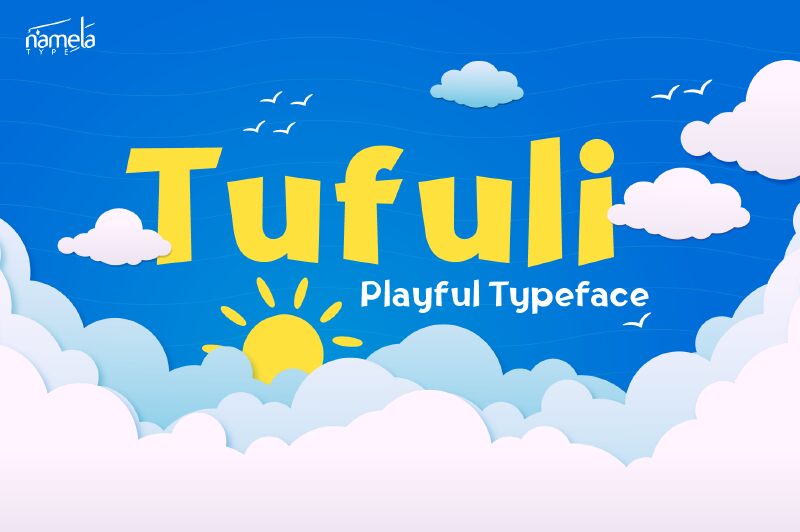
Tufuli Arabic font by Namela Type is a free display font with cartoonish appearances and geometric influences. It shows angular elements across the design with clean finish and contemporary feel. Its playful vibe makes it a suitable choice for casual projects as well as those where the fun element should be exaggerated.
Tufuli Arabic best fits posters, book covers, postcards, flyers, social media banners, advertisements and games. It is perfectly fitted within children stories books illustrations. It can be used for short size texts such as headlines or longer body of text in websites in educational platforms etc.